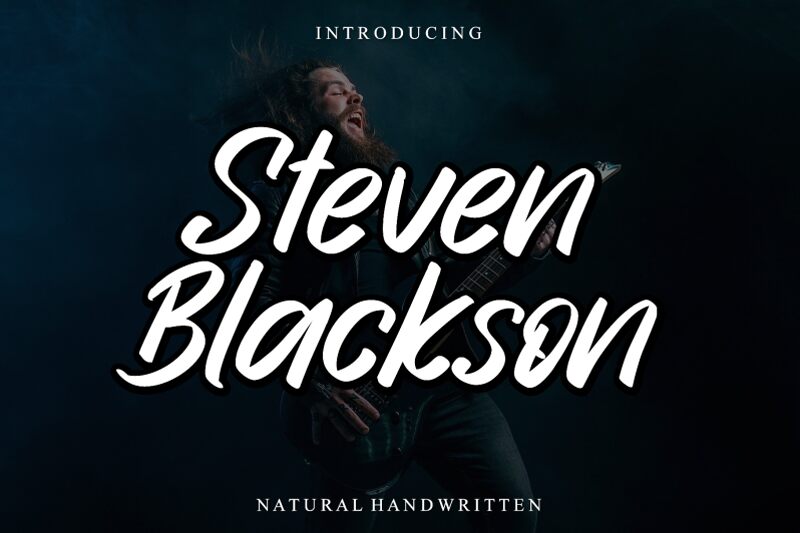
Steven Blackson - Personal Use Italic
Steven Blackson Italic, a semi-light typeface from the Steven Blackson family, offers a touch of personal flair with its handwritten style. Crafted by Letterafa Studio, this font embodies a blend of casual elegance and functional design that appeals to a wide range of creative projects. The fluidity of its characters mimics the natural variation found in human penmanship, making it an excellent choice for designs aiming to convey authenticity and warmth.
Its aesthetic charm lies in the gentle slant and varied stroke weight which suggest movement and individuality. Ideal for invitations, branding, and advertising where personality is key, Steven Blackson Italic invites audiences into a world where every letter tells a story. Its versatility extends to digital platforms as well—enhancing user interfaces with its approachable vibe. This font is not just about looking good; it's about creating an intimate connection between the text and its readers.